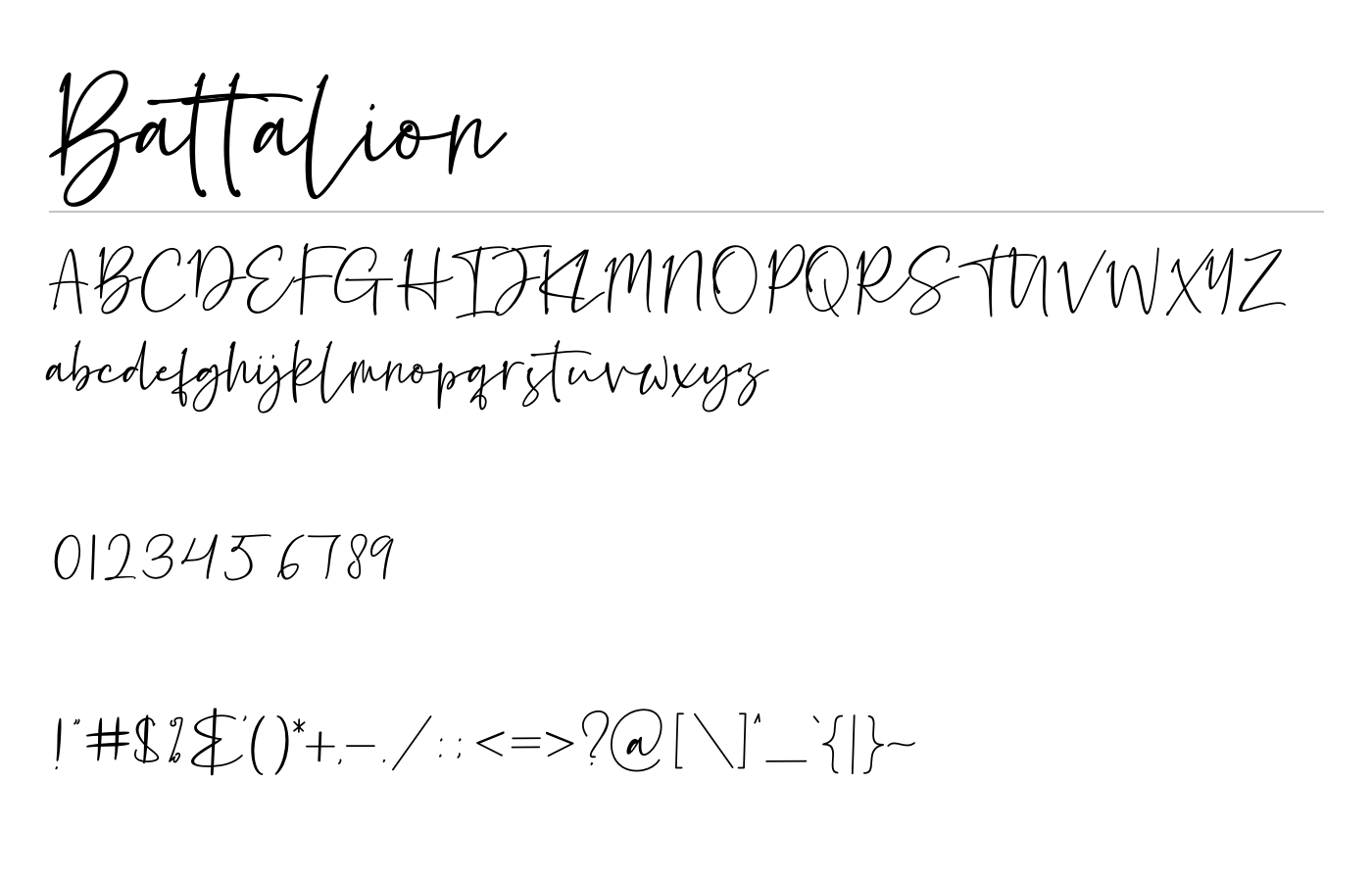
Battalion is a delicate, handwritten script font featuring a light weight and airy, flowing strokes that create an elegant, casual feel. Its tall, slender letterforms with varying stroke widths exude a playful yet sophisticated personality, making it ideal for branding, invitations, and stylish editorial design where a personal touch is desired. This font works best in settings that require charm and approachability, such as lifestyle blogs, fashion labels, and creative projects looking to convey handcrafted elegance.
Battalion Font